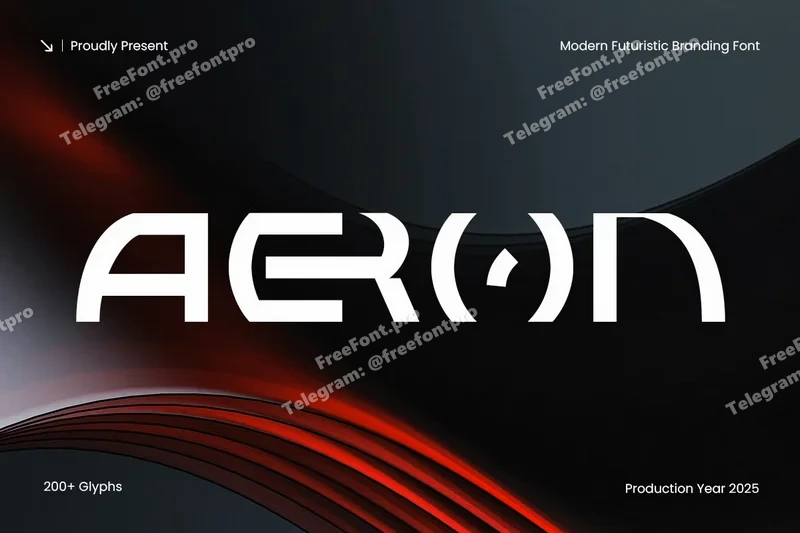
Aeron – Modern Futuristic Branding Font
AERON is a modern futuristic branding font designed for tech, digital, and contemporary creative projects. Ideal for logos, branding, posters, and UI/UX designs, it combines sleek geometric shapes with a cutting-edge futuristic aesthetic.
With precise and clean letterforms, AERON ensures readability and a bold, professional look across both print and digital media, making it perfect for tech startups and forward-thinking brands.
AERON – Modern Futuristic Branding Font Features
Sleek and futuristic character set
Perfect for branding, tech logos, and digital designs
Uppercase, lowercase, numerals, and punctuation included
OpenType features for extra versatility